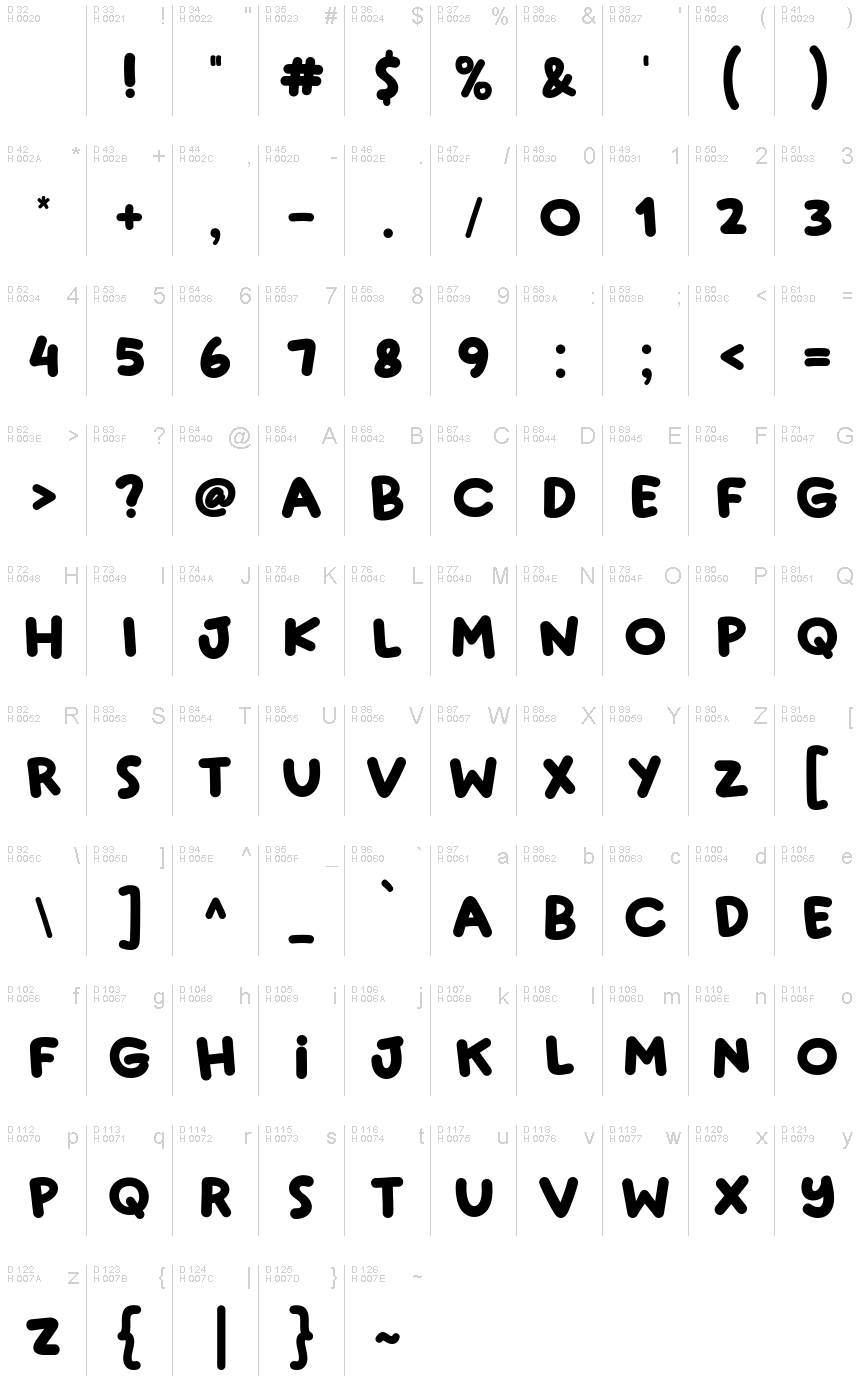
Super Playful
Super Playful, a delightfully whimsical display font created by fsuarez913, exudes a captivating blend of childlike charm and bold, energetic confidence. With its rounded, organic edges and playful, exaggerated strokes, this font effortlessly captures the essence of a vibrant, animated world. The characters' distinctive, cartoonish styling and bold weight lend an irresistible sense of playfulness, inviting the viewer to indulge in a lighthearted, imaginative experience.
The versatile nature of Super Playful makes it an excellent choice for a wide range of applications, from children's books and product packaging to social media graphics and festival posters. Its dynamic, attention-grabbing presence can elevate any design, seamlessly injecting a joyful, carefree atmosphere that resonates with audiences of all ages.